The Hype Summer Groove Font Bundle
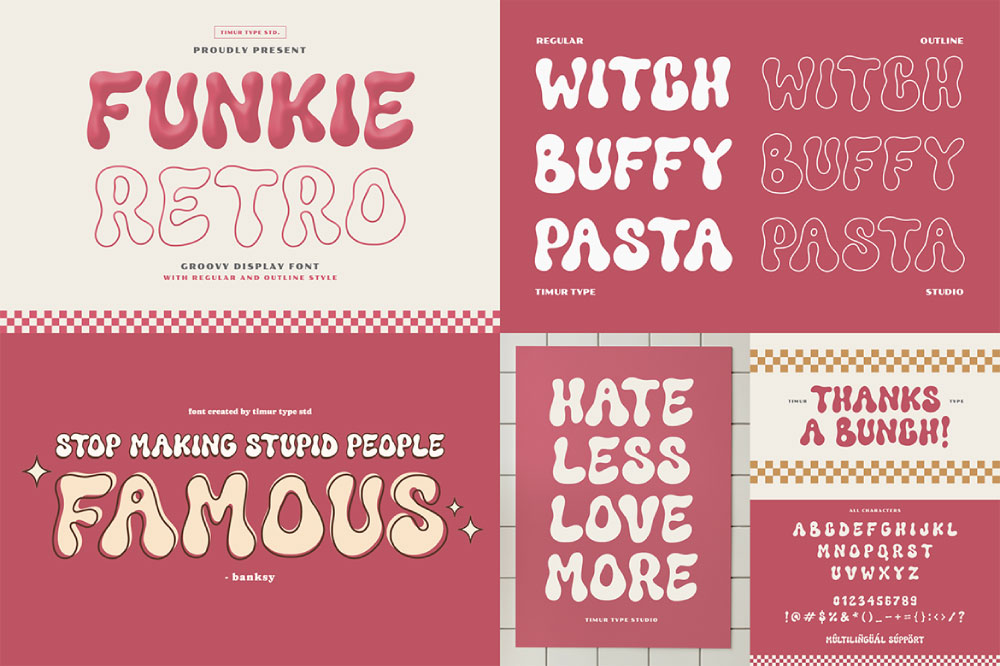
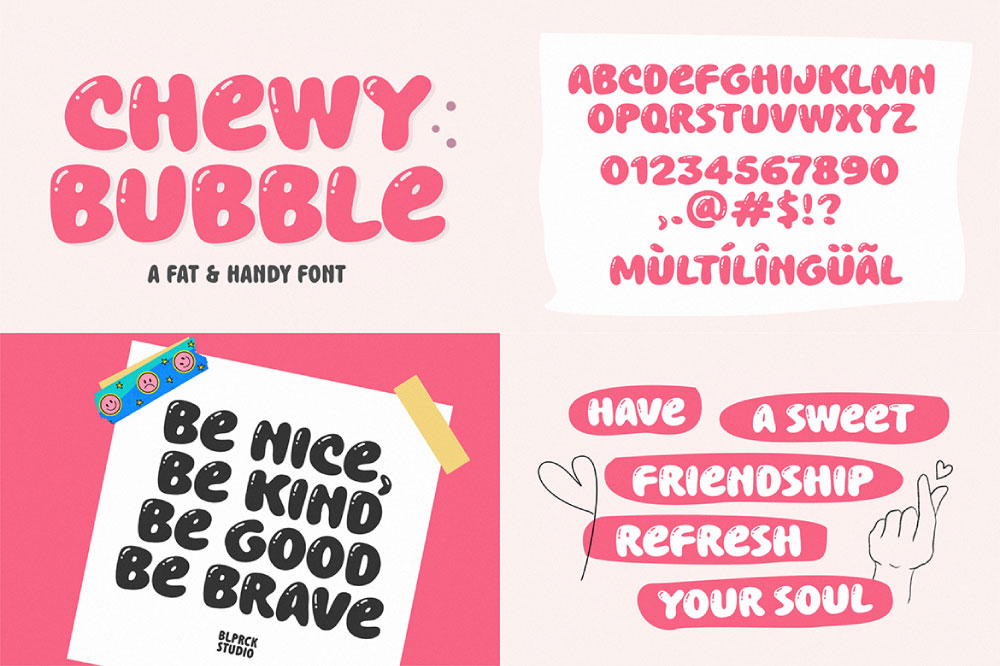
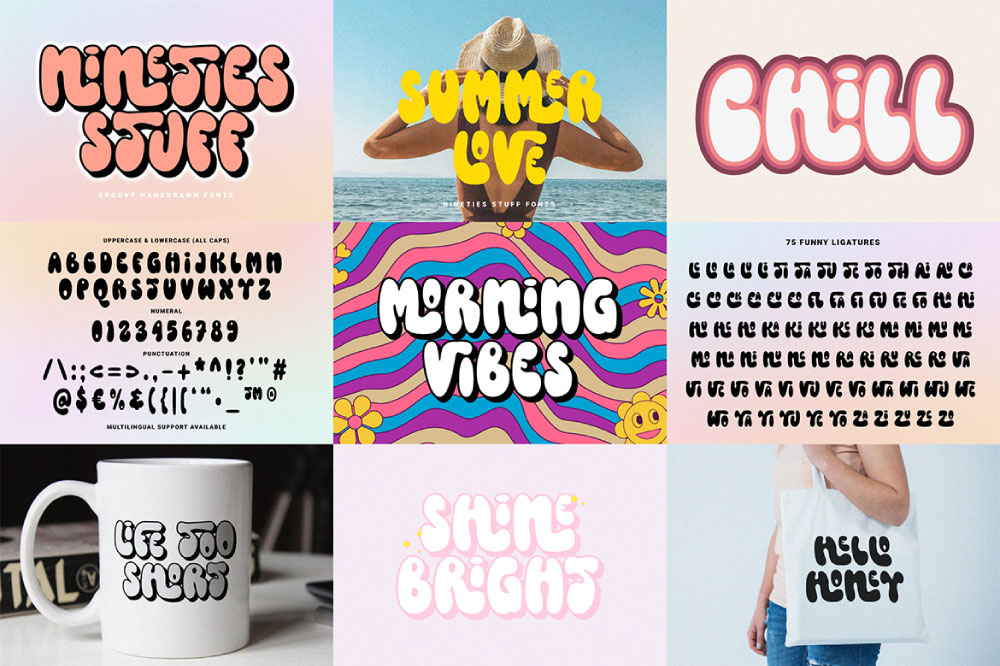
Transform your design projects with The Hype Summer Groove Font Bundle! This collection features 13 unique and vibrant fonts, perfect for adding a touch of retro flair and modern fun to your work. With a whopping 93% discount, you save $228 and get a versatile array of styles suitable for any creative endeavor.